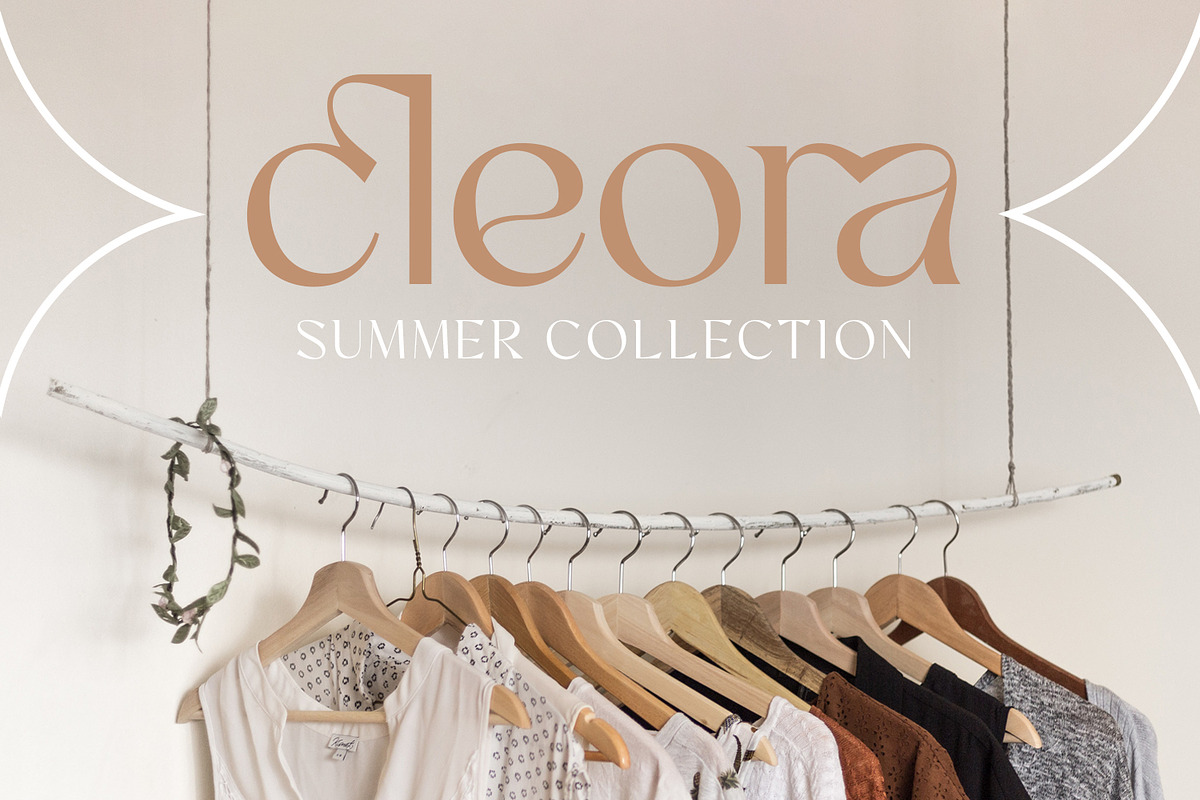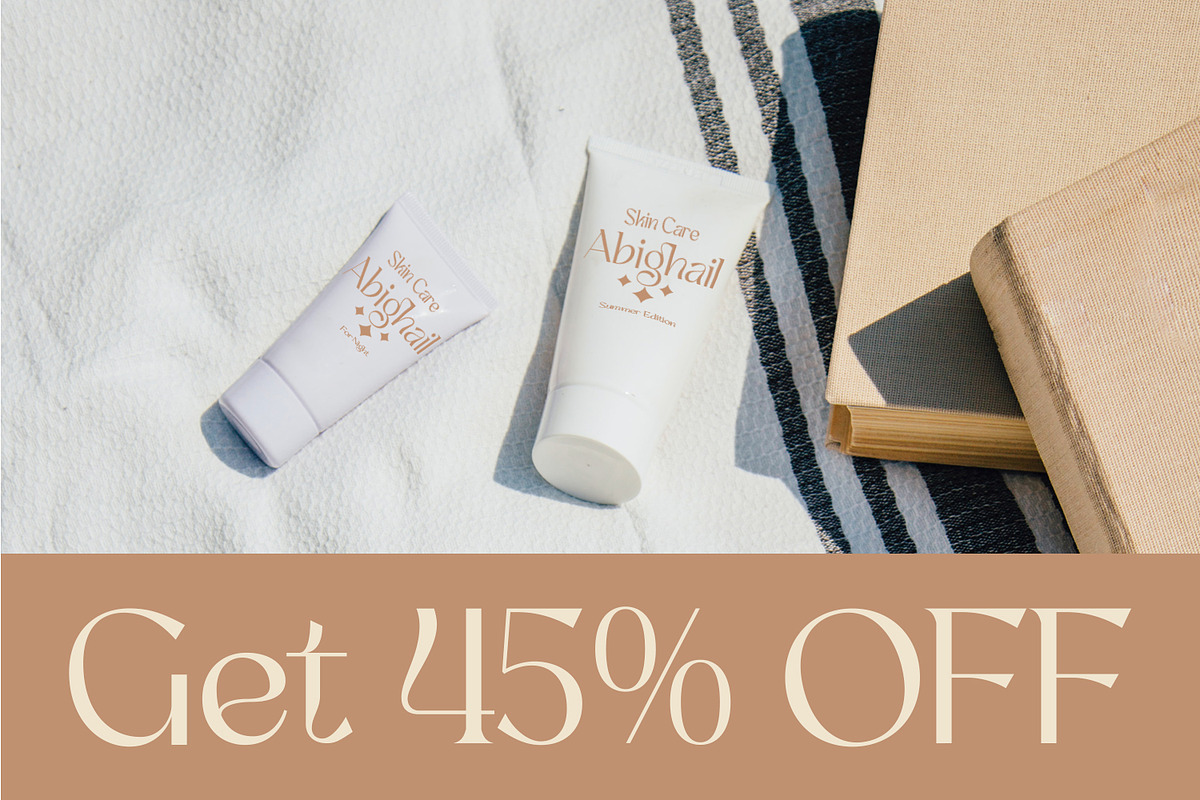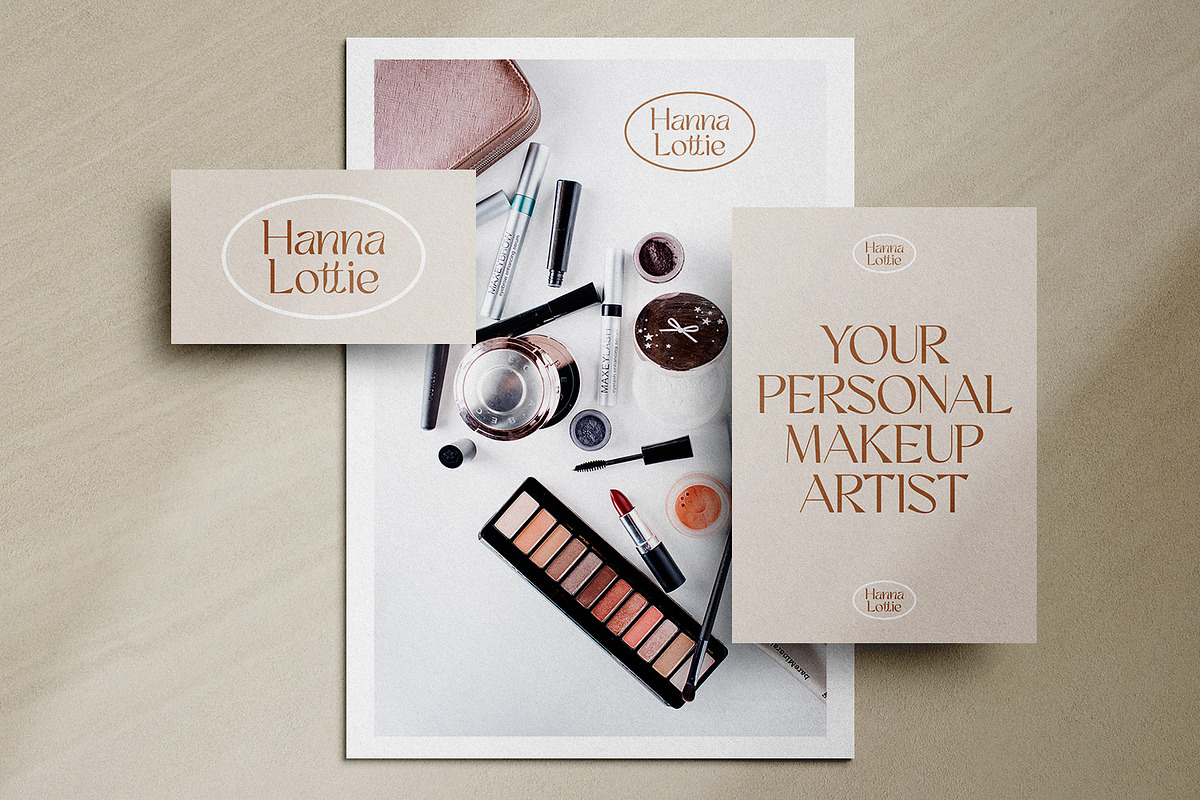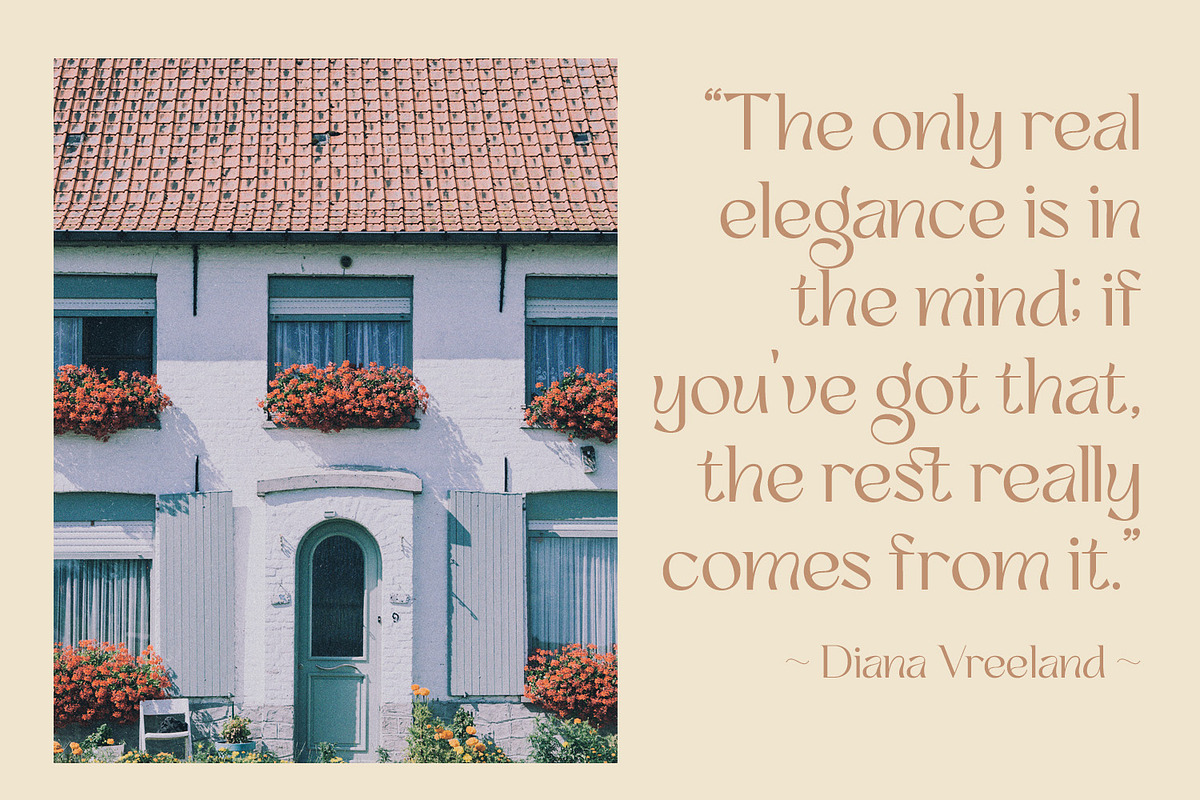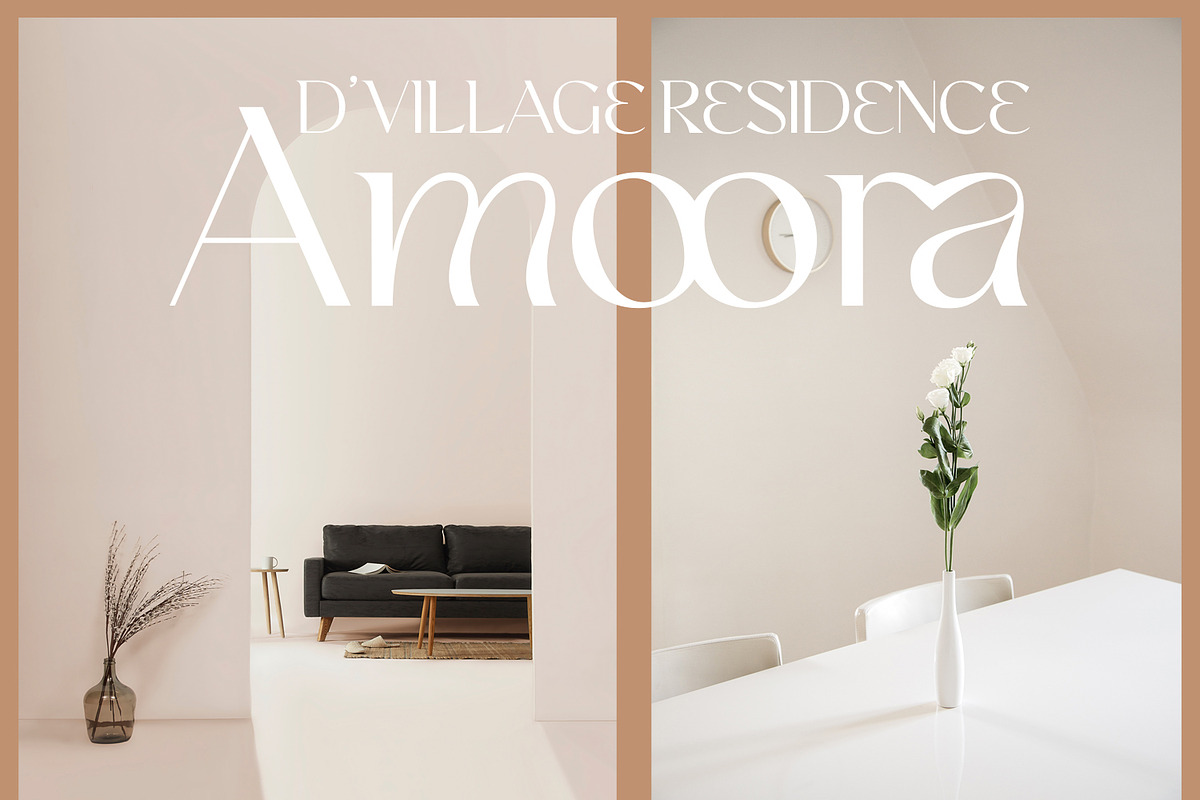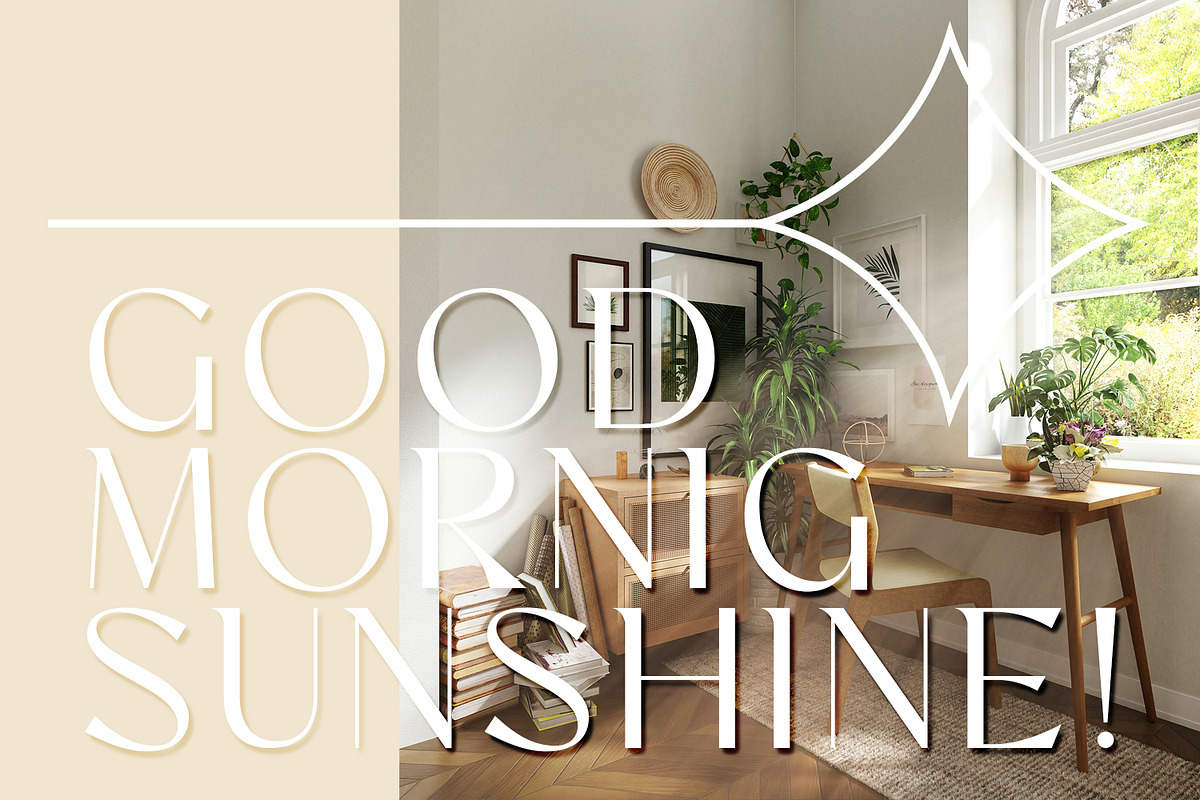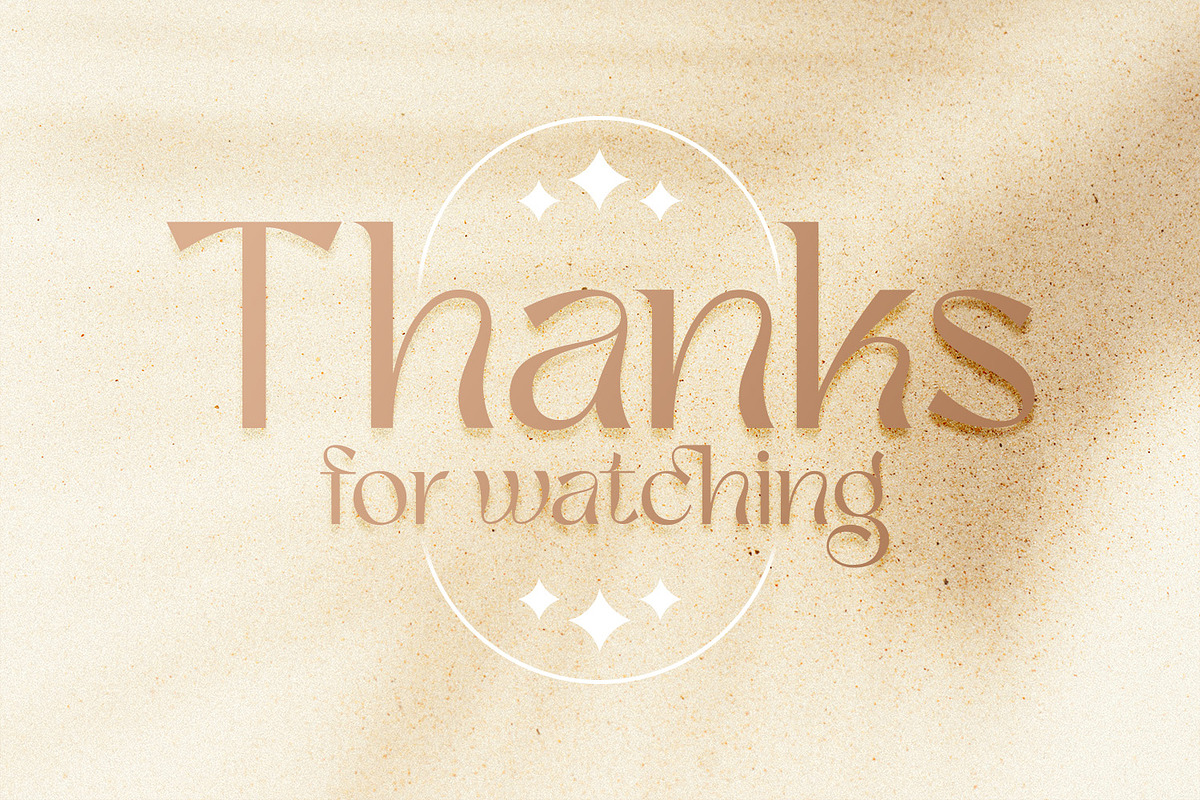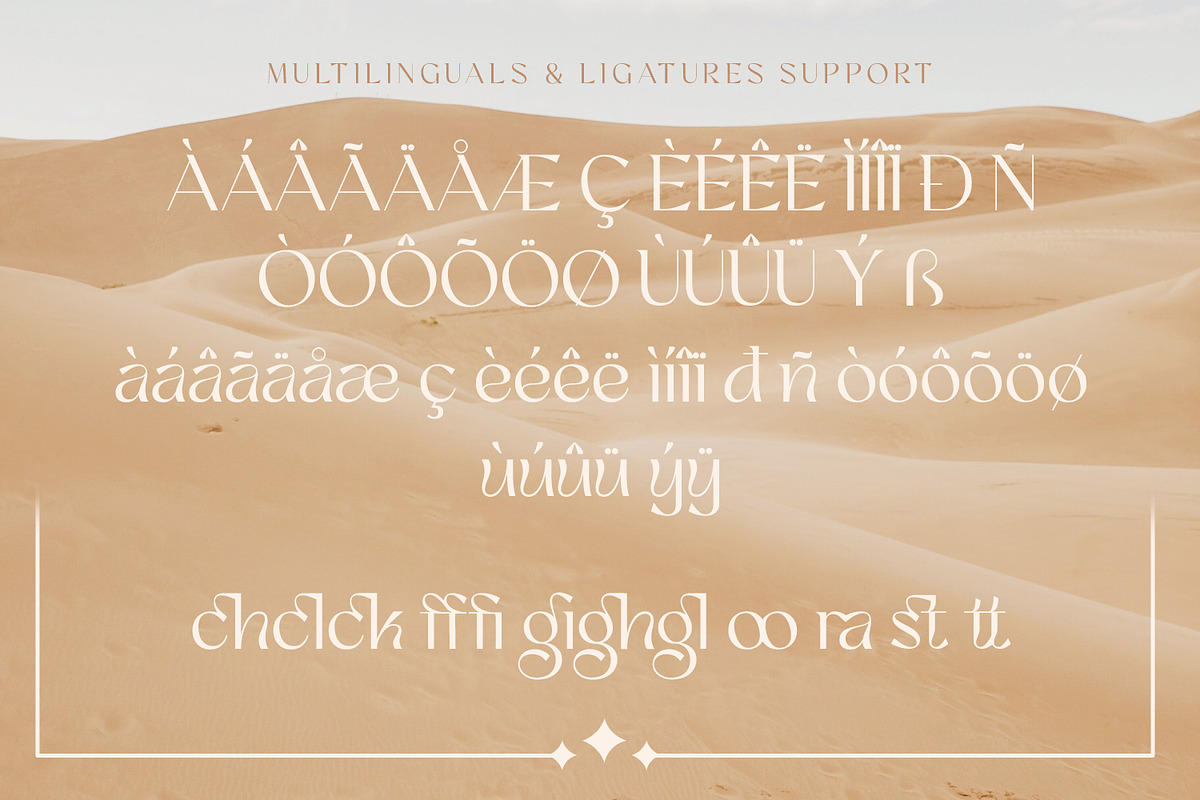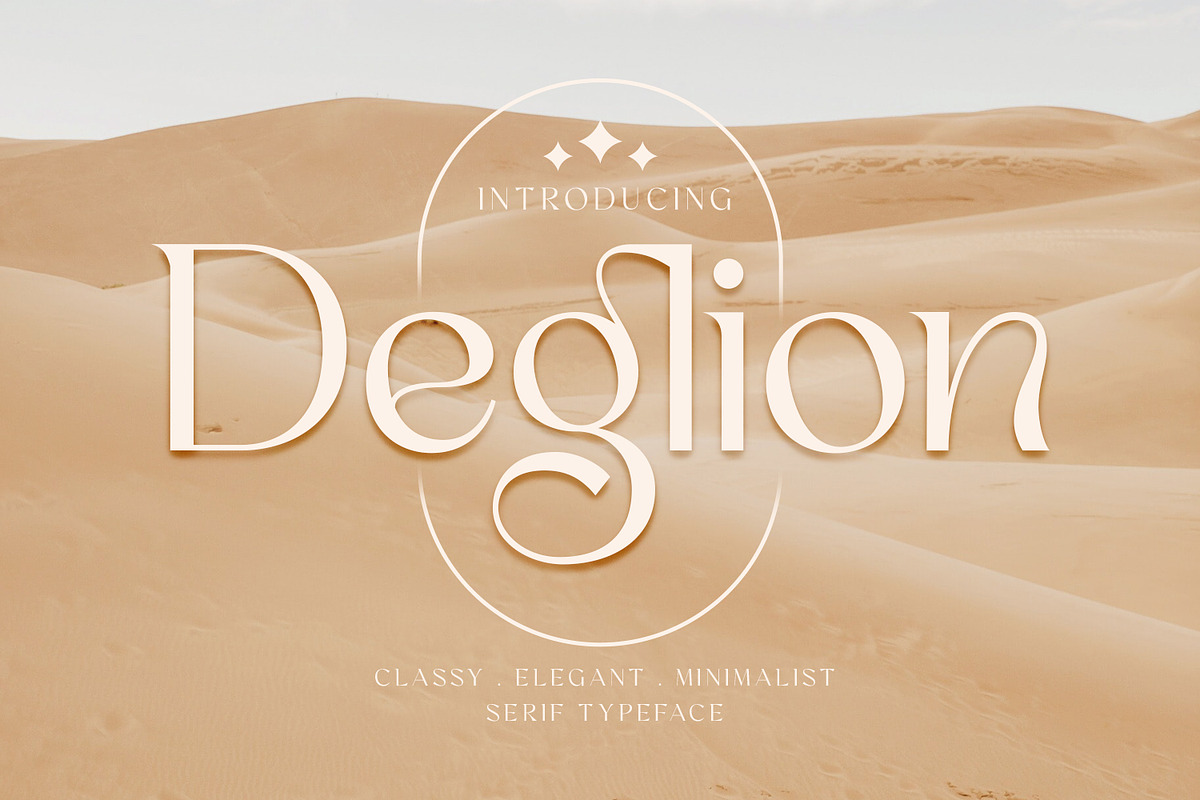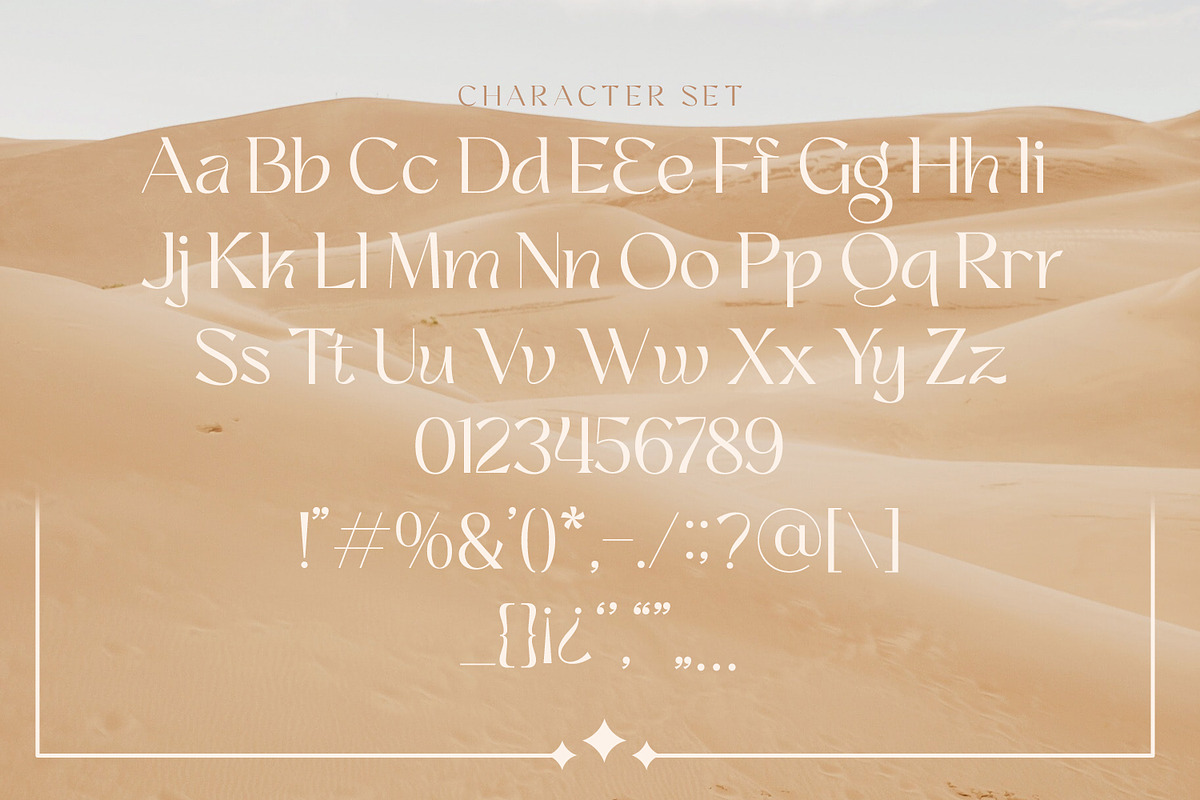
Deglion - Classy Elegant Serif
Hello Introducing, Deglion - Classy Elegant Display Serif is an unique font that uses ligatures to smoothly link letters. Perfect for adding a unique twist to word-mark logos, monograms or pull quotes. Deglion has 12 ligatures as well as numbers and punctuation making it super fantastic. Ligature can be turned off if required standard writing needs. What's Included :